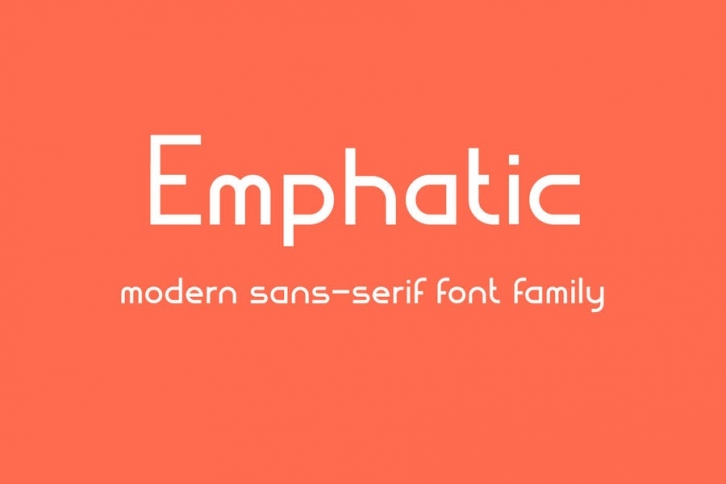
Introducing you Empatic, a modern sans-serif font family.
If you are looking for a simple and clean font, you come to the right place!
This font brings modern ambience for your words.
Empatic also has light, regular and bold versions.